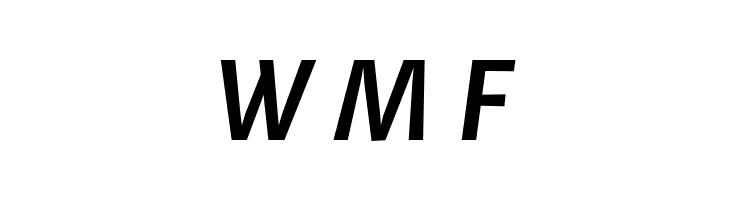
Merriweather Sans Font
A modern, versatile sans-serif font with excellent readability.
A modern, bold, italic sans-serif font with medium contrast and compact spacing.
MerriweatherSans-Italic Font
A modern, italic sans-serif font with clean lines and balanced proportions.
MerriweatherSans-ExtraBold Font
A bold, modern sans-serif font with excellent readability and versatility.